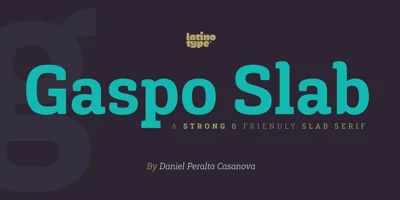
Gaspo Slab Font
Gaspo Slab Font is perfect for bold construction company branding, industrial equipment marketing, heavy machinery documentation, robust manufacturing communications, solid building materials advertising, and powerful corporate presentations. Its sturdy character makes it ideal for construction contractors, industrial manufacturers, engineering firms, steel fabricators, and any application requiring strong typography that conveys structural integrity, industrial strength, and uncompromising durability.
Gaspo Slab Font is exciting because it embodies the unwavering strength and solid reliability of industrial construction through powerfully built letterforms that reflect the robust engineering of modern infrastructure. Its substantial proportions and commanding presence evoke the dependable quality of heavy-duty construction and industrial manufacturing, making it perfect for organizations that build the foundations of modern civilization. The font's solid character instantly communicates expertise in structural engineering and industrial excellence.
Gaspo Slab Font family includes structurally-sound weight variations typically featuring Regular, Medium, Bold, and Black options with consistent slab serif styling throughout. The family often incorporates industrial symbols, construction characters, and engineering marks designed for heavy-duty applications, providing designers with comprehensive tools for creating authentic, construction-focused typographic solutions.
When selecting industrial strength typography solutions, Gaspo Slab Font represents an exceptional choice for construction and manufacturing projects. This powerful typeface brings instant industrial credibility to any design, making it invaluable for construction companies, manufacturing firms, and engineering consultancies requiring dependable typography. Whether you're developing construction company branding, creating industrial marketing materials, or designing heavy machinery documentation, Gaspo Slab Font provides the structural strength and industrial authenticity essential for building trust in today's construction-focused marketplace.